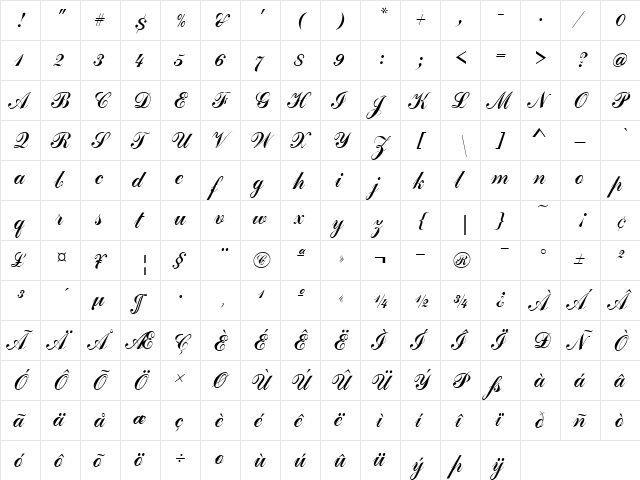
Commercial Script D Regular
| Foundry | by URW |
Design Context for Commercial Script D Typeface
Commercial Script D brings a calligraphic fluidity to the page — its connecting strokes and expressive curves give it an unmistakably human quality.
Font Pairing: Combine Commercial Script D with a simple geometric sans for maximum contrast — the tension between flowing curves and clean structure is a classic typographic pairing.
Pro Tip: Pair Commercial Script D with a clean sans-serif for supporting text. The contrast between fluid script and geometric structure creates an elegant typographic hierarchy.